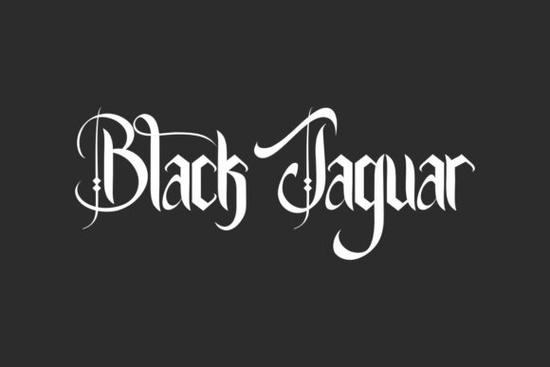
If you're looking for a bold, authentic blackletter font that works well for logos, vintage posters, or hand-lettered craft projects, the Black Jaguar Font is worth your attention. It’s a gothic-style blackletter typeface with strong visual presence and traditional letterforms think medieval manuscripts or 19th-century signage, not cartoonish or overly decorative interpretations. What sets it apart is its clean PUA encoding, which means all alternate glyphs, swashes, and stylistic ligatures are easy to access in design apps like Adobe Illustrator, Affinity Designer, or even Cricut Design Space no workarounds needed.
When does Black Jaguar Font fit best?
This isn’t a “one-size-fits-all” font but that’s a good thing. It shines where authenticity and atmosphere matter: wedding invitations with a gothic or romantic theme, boutique coffee shop branding, tattoo flash designs, or even printed fabric labels for small-batch apparel. Because it’s rooted in blackletter tradition, it pairs naturally with serif body text or minimalist sans-serif layouts for contrast. You’ll also find it works well in print-on-demand contexts especially on mugs, tote bags, or art prints where legibility at larger sizes and strong character personality both count.
How does it compare to other blackletter fonts on Creative Fabrica?
Not all blackletter fonts behave the same way in real use. Some feel too tight or cramped; others lack enough alternates to keep repeated words from looking repetitive. Black Jaguar strikes a balance: generous spacing, clear stroke contrast, and thoughtful glyph variation. If you’ve used Old Victorian Vol. 2, you’ll notice Black Jaguar leans slightly more structured and less ornate making it easier to pair with modern elements. And while Amstrong Font offers a sharper, more angular take, Black Jaguar feels grounded and readable, especially at medium sizes (24–48 pt).
Can beginners use it without frustration?
Yes if you’re comfortable selecting fonts in Canva, Silhouette Studio, or similar tools, you can use Black Jaguar right away. The PUA encoding helps avoid the common headache of missing swashes or characters showing up as empty boxes. That said, if you’re new to blackletter typography, spend five minutes testing how letters connect. Words like “the”, “with”, or “black” often benefit from manual kerning or swapping in a swash capital “B” or “T”. It’s not automatic but it’s intentional, and part of what gives the font its character.
If you enjoy the weight and rhythm of Black Jaguar Font, you might also appreciate the refined tension in Old Victorian Vol. 2, or the confident sharpness of Amstrong Font. All three sit comfortably in the blackletter fonts category but serve different moods so having more than one on hand helps avoid visual fatigue across client projects or seasonal product lines.
One practical tip before you start designing: test Black Jaguar at multiple sizes and on your intended output method. A 60-pt version looks striking on a poster but shrink it to 14 pt for a tagline, and readability drops. Likewise, if you’re cutting vinyl or engraving wood, check stroke width against your machine’s minimum cut line. A quick mockup in grayscale helps spot thin areas that might fill in or break during production.
- ✅ Use it for headlines, logos, and short phrases not long paragraphs
- ✅ Pair with a neutral sans-serif (like Montserrat or Inter) or a warm serif (like Cormorant Garamond)
- ✅ Enable OpenType features in your app to unlock swashes and alternates
- ❌ Avoid stretching or outlining the font it breaks stroke integrity
- ❌ Don’t use it for UI buttons or small digital text it’s not optimized for screens
Try setting a simple phrase like “Est. 2024” or “Handcrafted” in Black Jaguar, then swap in two or three swash capitals. You’ll quickly see how small changes add distinction without overcomplicating the layout. That’s where this font earns its place: not as a novelty, but as a reliable, expressive tool you reach for when tone and tradition matter.